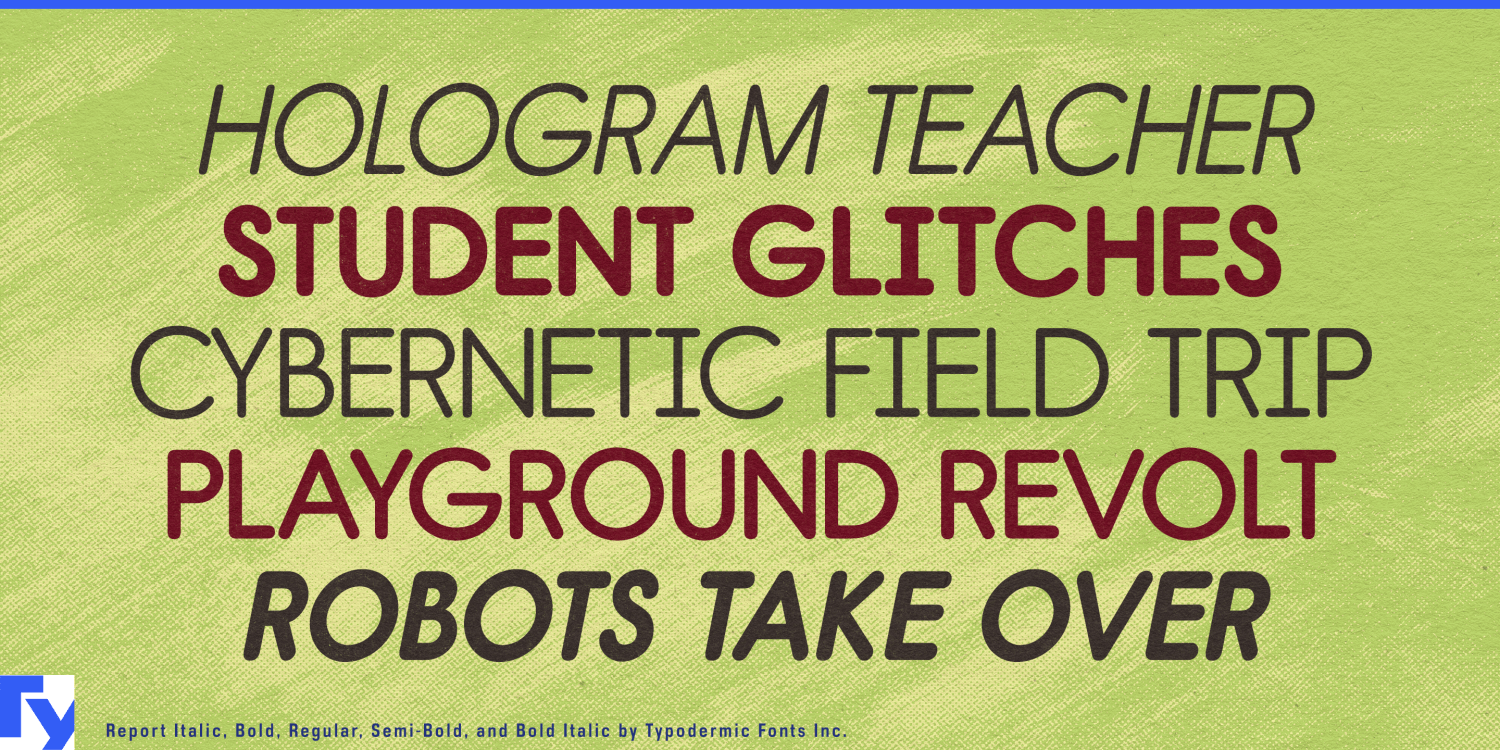
About Report
Step into the world of Report, a geometric sans-serif typeface that reimagines the essence of handwriting practice sheets for the digital age. With its rounded terminals and thoughtfully designed letterforms, Report strikes a harmonious balance between…